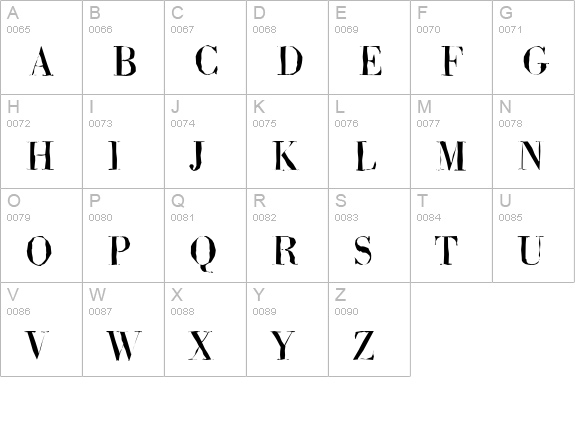
BodoniAntique-Regular is the standard, neutral variant in the BodoniAntique typeface family \xE2\x80\x94 well suited to general body text, paragraphs, and standard typographic work.
BodoniAntique-Regular font exudes elegance and sophistication with its timeless design. Featuring graceful curves and refined serifs, this font effortlessly combines classic charm with a modern touch. Perfect for adding a touch of sophistication to any project, from invitations to branding to editorial design. The BodoniAntique-Regular font is a versatile typeface that can be used for a variety of design purposes, making it a must-have in any designer's toolkit. Whether you're creating a vintage-inspired logo or designing an elegant wedding invitation, this font will elevate your work to the next level. Best of all, the BodoniAntique-Regular font is free to download at FontsMarket.com, making it accessible to designers of all levels. So why wait? Add this stunning font to your collection today and let your creativity soar.